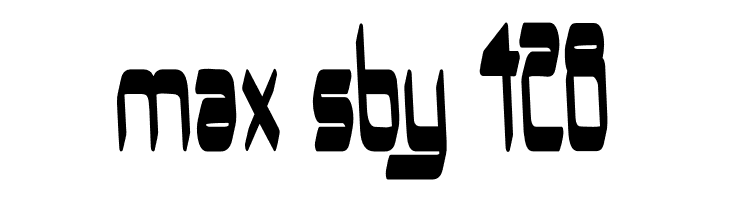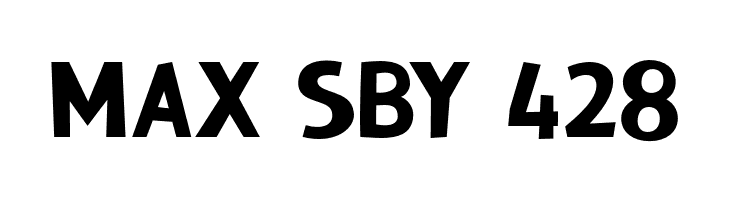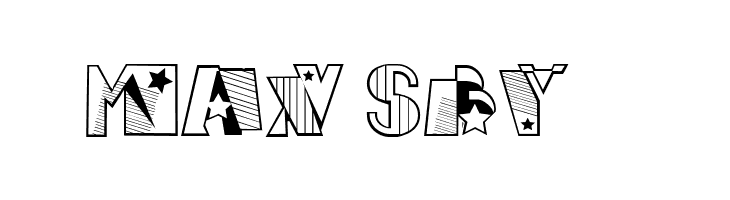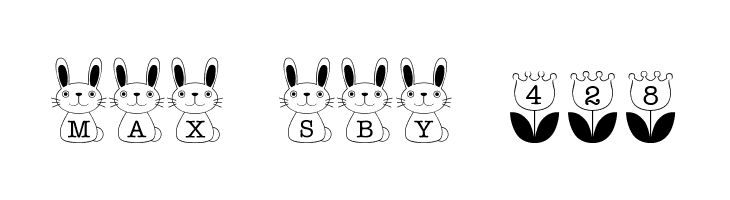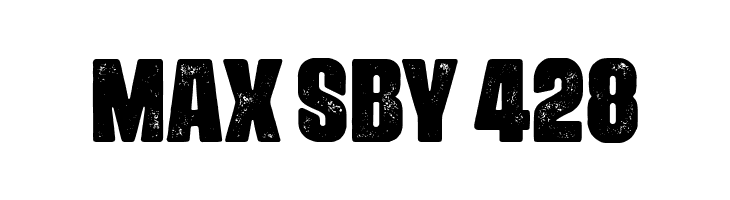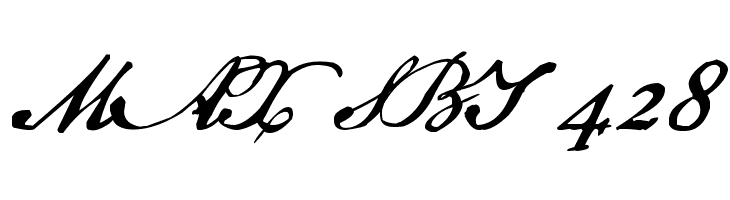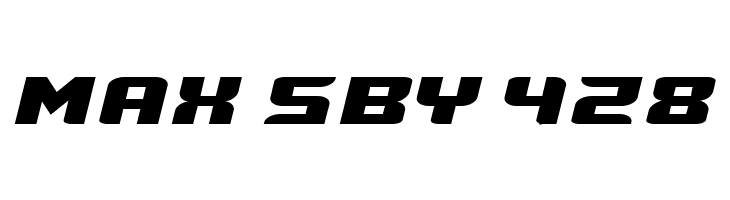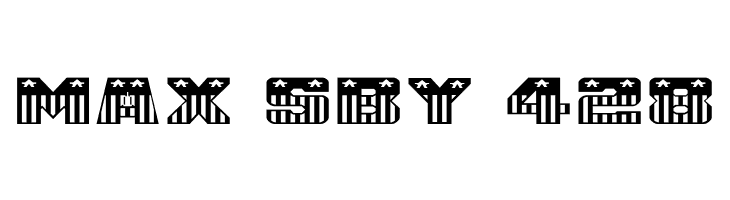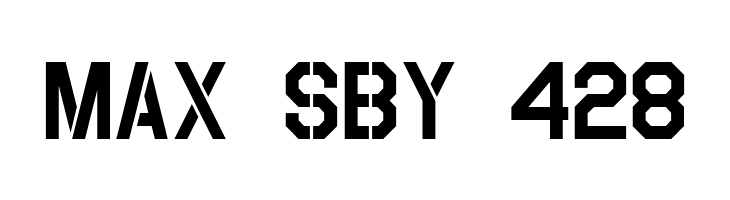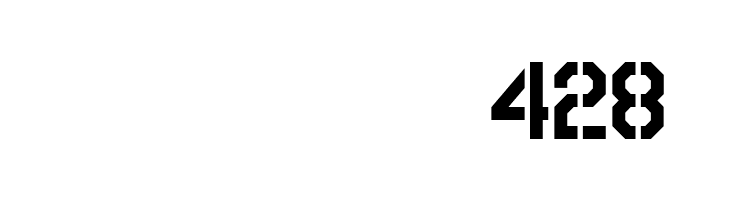
usa Font Font
A whimsical font with characters inside cartoon bunny designs.
USA_Flag NormalA Font
A bold, decorative font with American flag elements for a patriotic theme.
USAAF_Serial_Stencil Font
Bold, geometric stencil font with a military-industrial aesthetic.
USAAF_Stencil Font
A bold, industrial stencil font with geometric lines and cut-out sections.
usagi Font
A whimsical font with characters encased in bunny illustrations and numbers in floral designs.
usagi_b Bold Font
A whimsical font with characters inside bunny ear silhouettes, perfect for playful designs.
Usama Regular Font
A bold, playful handwritten font with thick, rounded characters.
UsamaLight Regular Font
Dieter Steffmann
A playful, hand-drawn font with irregular strokes and a whimsical style.
usang Font
A sketch-like, hand-drawn font with textured, artistic lines.
Usang Regular Font
Font by Vladimir Nikolic
A playful and decorative font with unique patterns and bold outlines.
USAngel Font
Font by Iconian Fonts
A bold, futuristic font with geometric shapes and sharp angles.
USAngel 3D Font
Font by Iconian Fonts
A bold, 3D outline font with a futuristic and geometric design.
USAngel 3D Italic Font
Font by Iconian Fonts
A bold, italic, 3D font with a modern and edgy style.
USAngel Bevel Font
Font by Iconian Fonts
A bold, geometric font with a beveled, three-dimensional appearance.
USAngel Bevel Italic Font
Font by Iconian Fonts
A bold, italicized font with a beveled, three-dimensional effect.
USAngel Chrome Font
Font by Iconian Fonts
A bold, futuristic font with horizontal stripes and geometric shapes.
USAngel Chrome Italic Font
Font by Iconian Fonts
A bold, italicized, chrome-like font with a futuristic and dynamic style.
USAngel Condensed Font